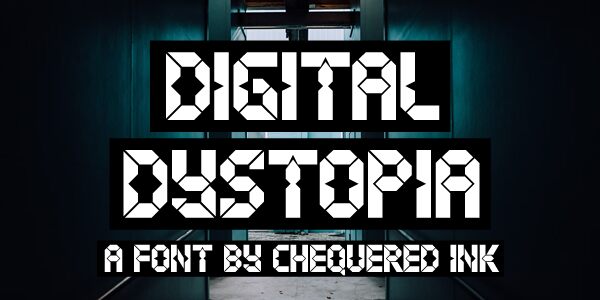
Digital Dystopia
Digital Dystopia, a creation of Chequered Ink, embodies the essence of an era steeped in technology and edged with a futuristic foreboding. This display font boasts a bold weight that commands attention, while its semi-condensed width ensures impact without overwhelming spatial constraints. The digital style is unmistakable; it resonates with themes of advanced computing and virtual worlds, making it ideal for projects that require a touch of the avant-garde or the subversive.
Visually, Digital Dystopia captures an aesthetic that is at once striking and meticulously structured. Its characters are crafted with sharp angles and geometric precision, suggesting a mechanical origin as if each letter were forged in the circuits of an alternate reality's machines. The font exudes a sense of controlled chaos-perfectly aligned for narratives or designs that dwell on themes of cyberpunk landscapes or high-tech espionage.
In creative projects where style sets the tone, Digital Dystopia shines as an assertive choice for title sequences in games or films within the science fiction genre. It's equally compelling when used in promotional materials for tech events or as part of branding efforts seeking to project strength and modernity.
In summary, Digital Dystopia is not just another font-it's a visual storyteller ready to imprint your message with its distinctive character onto any canvas daring enough to embrace it.